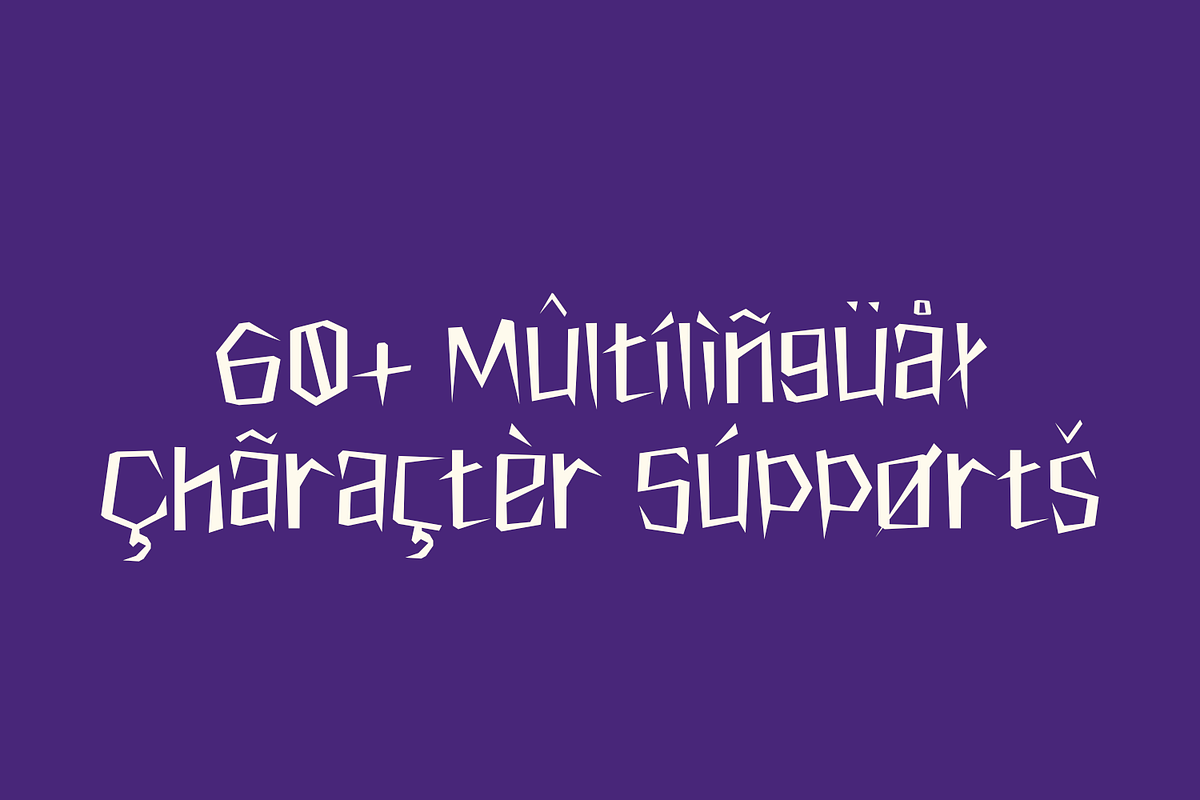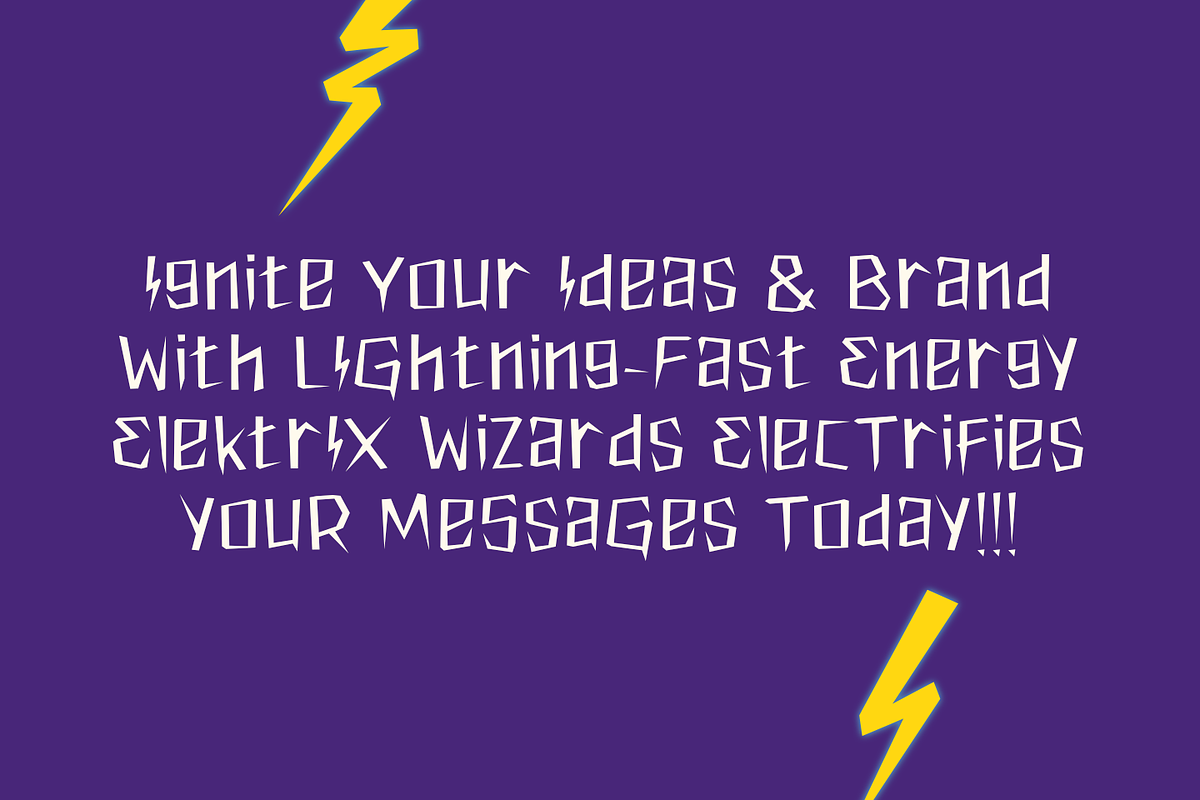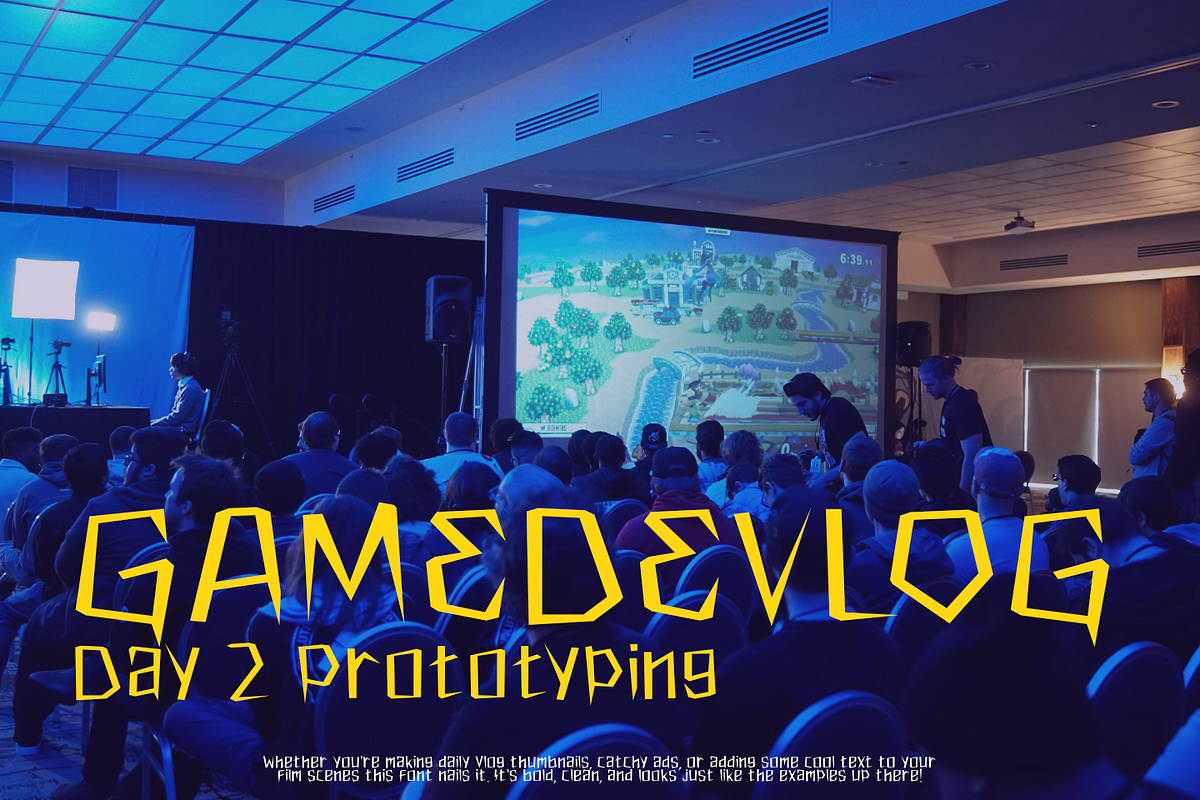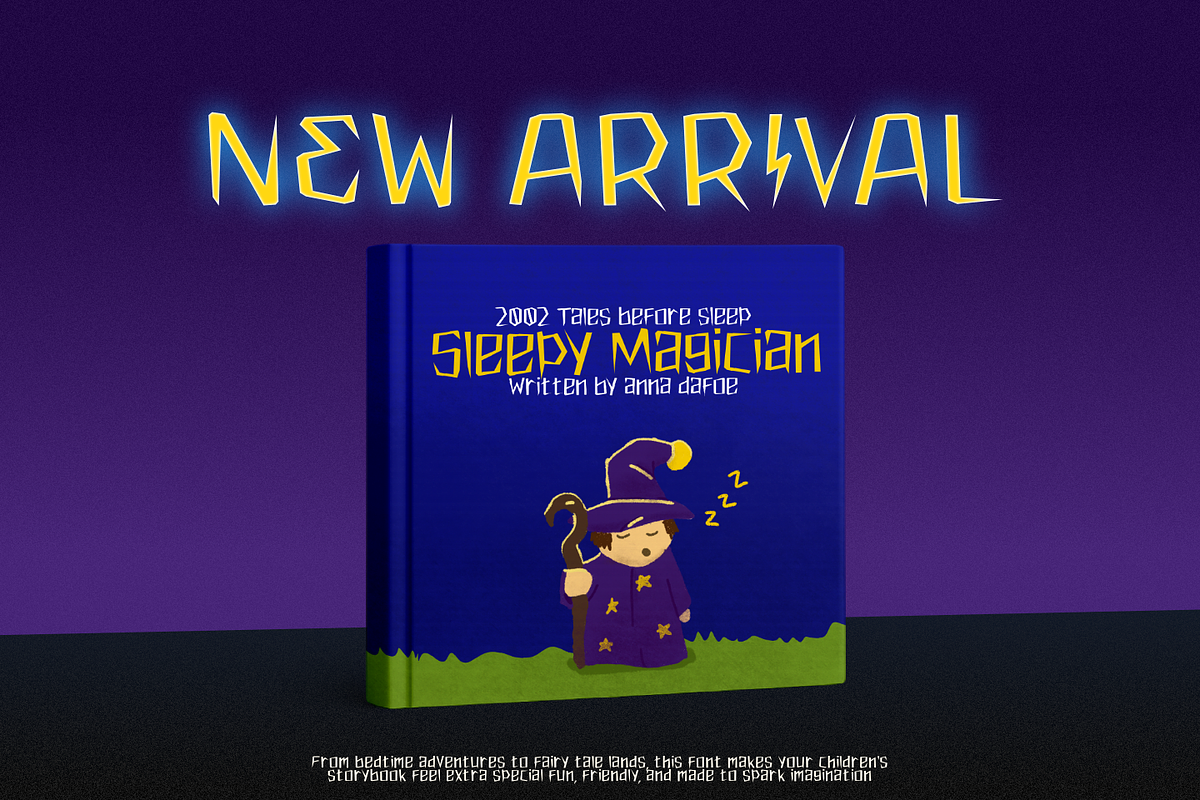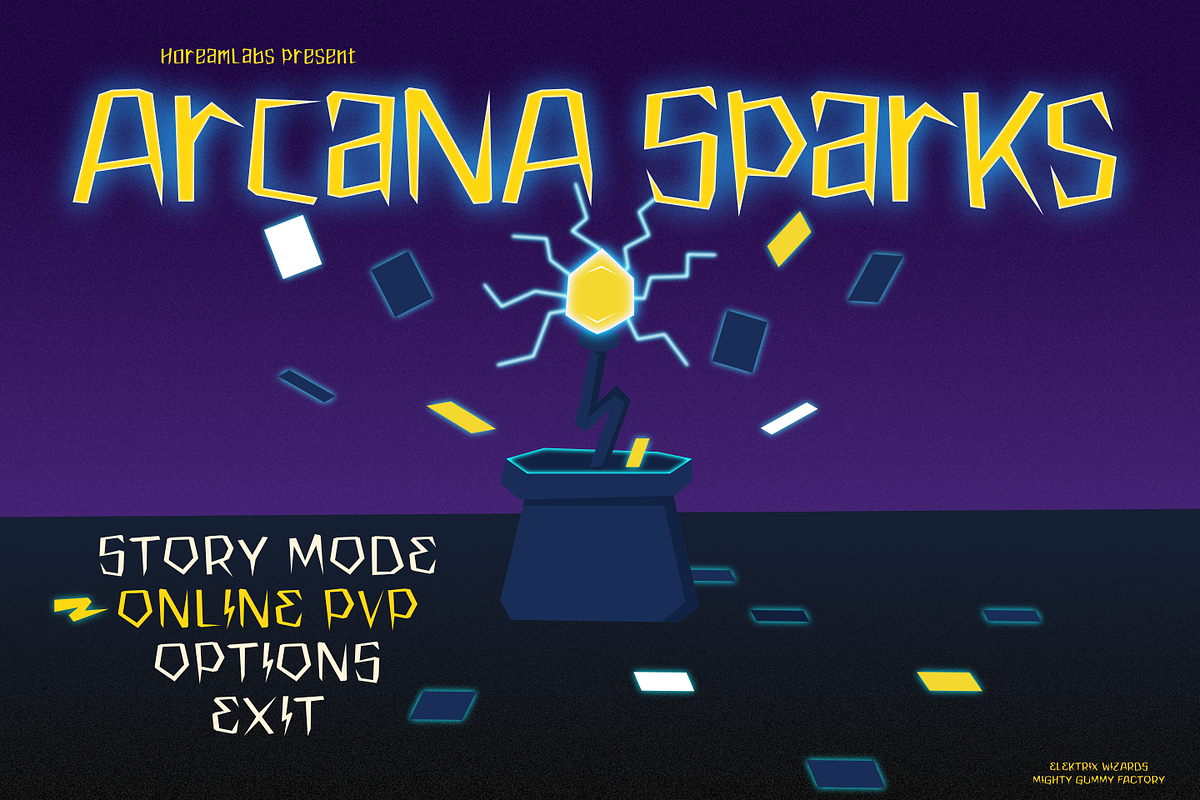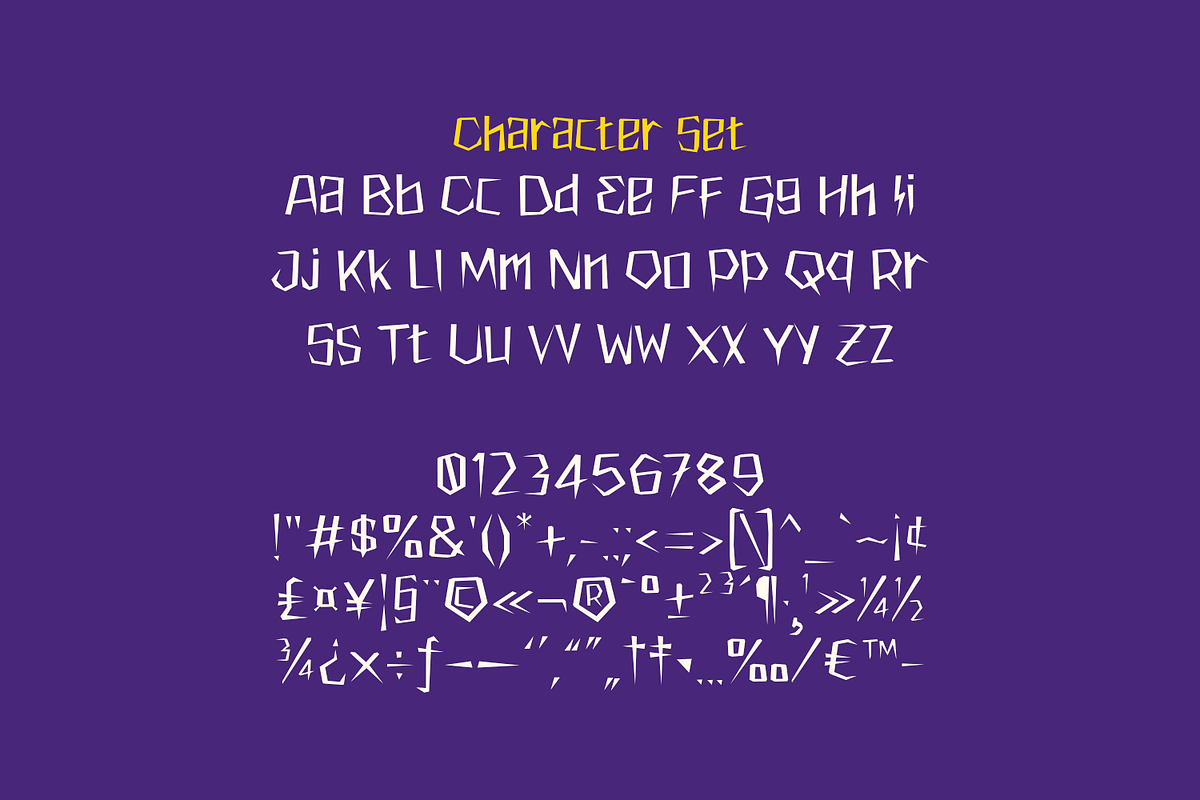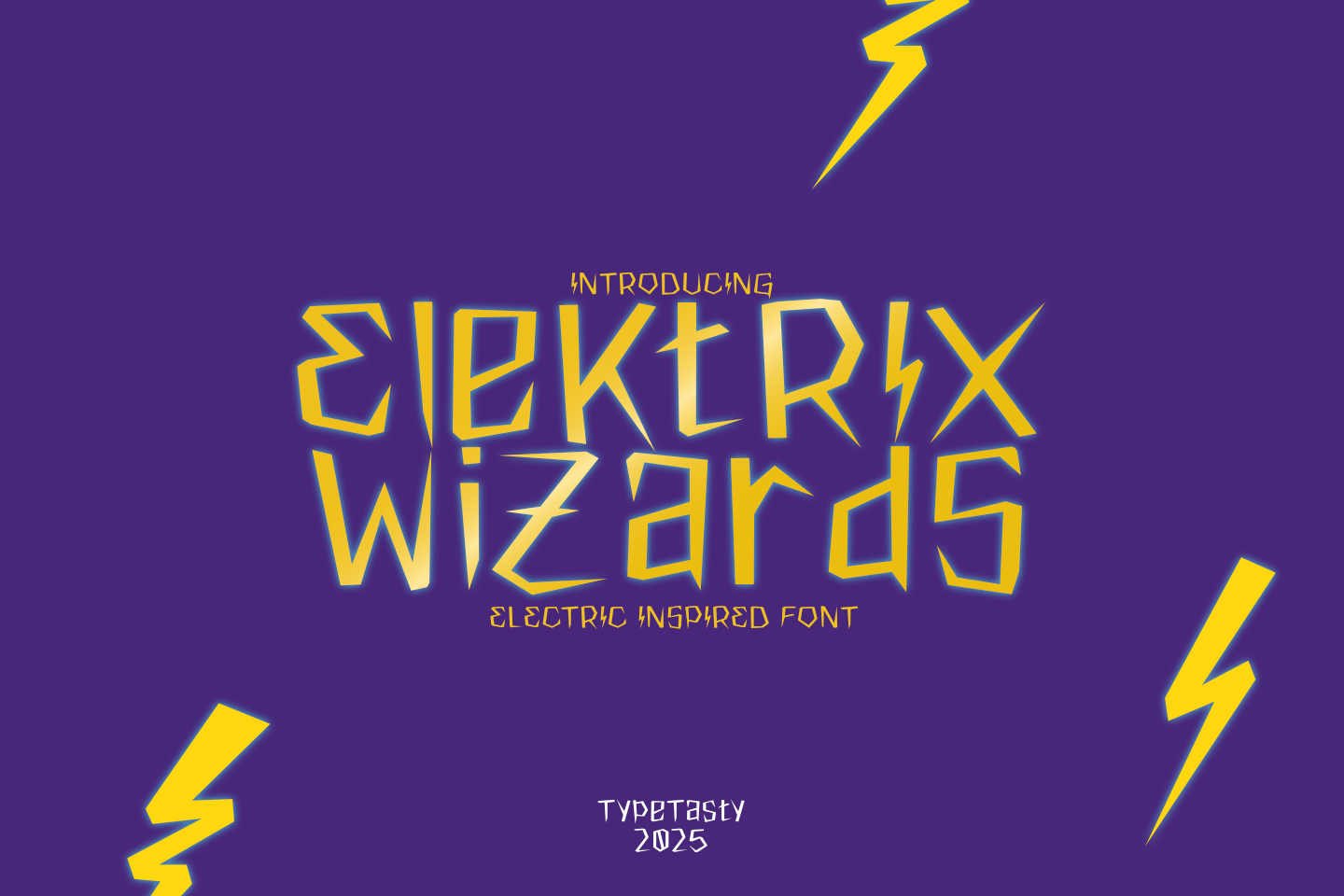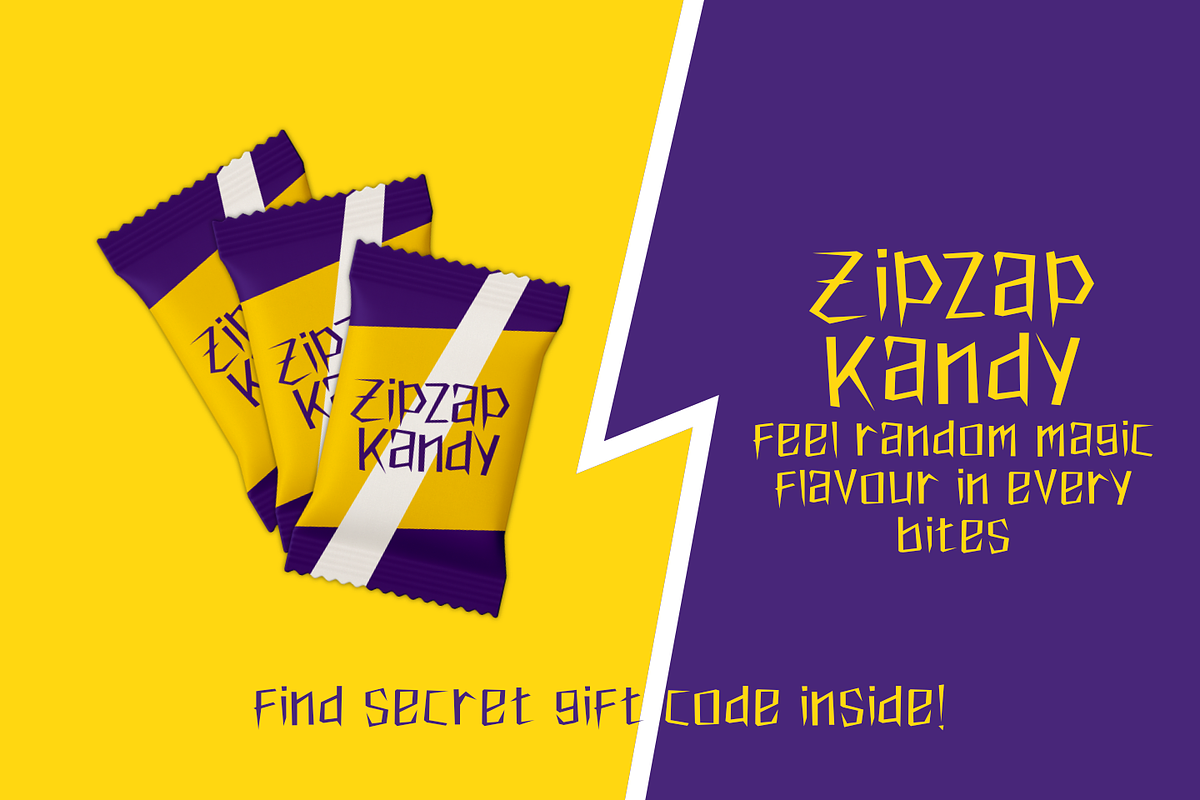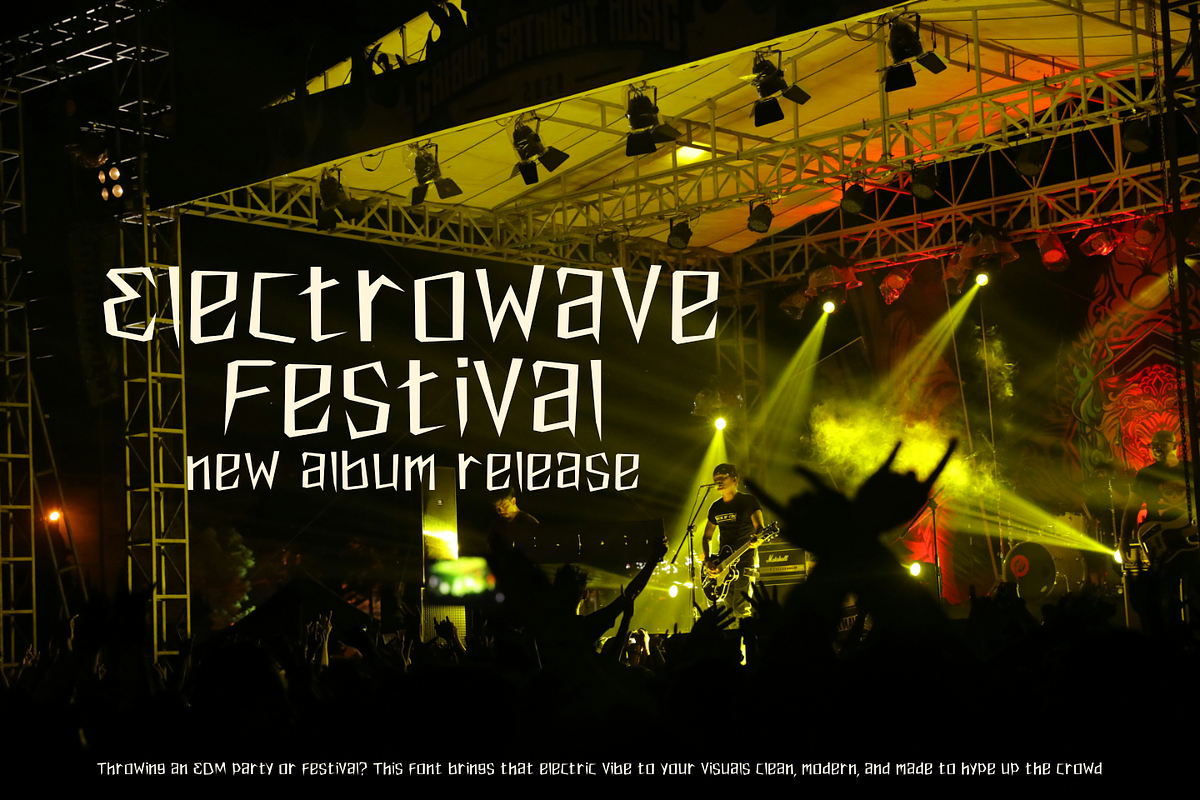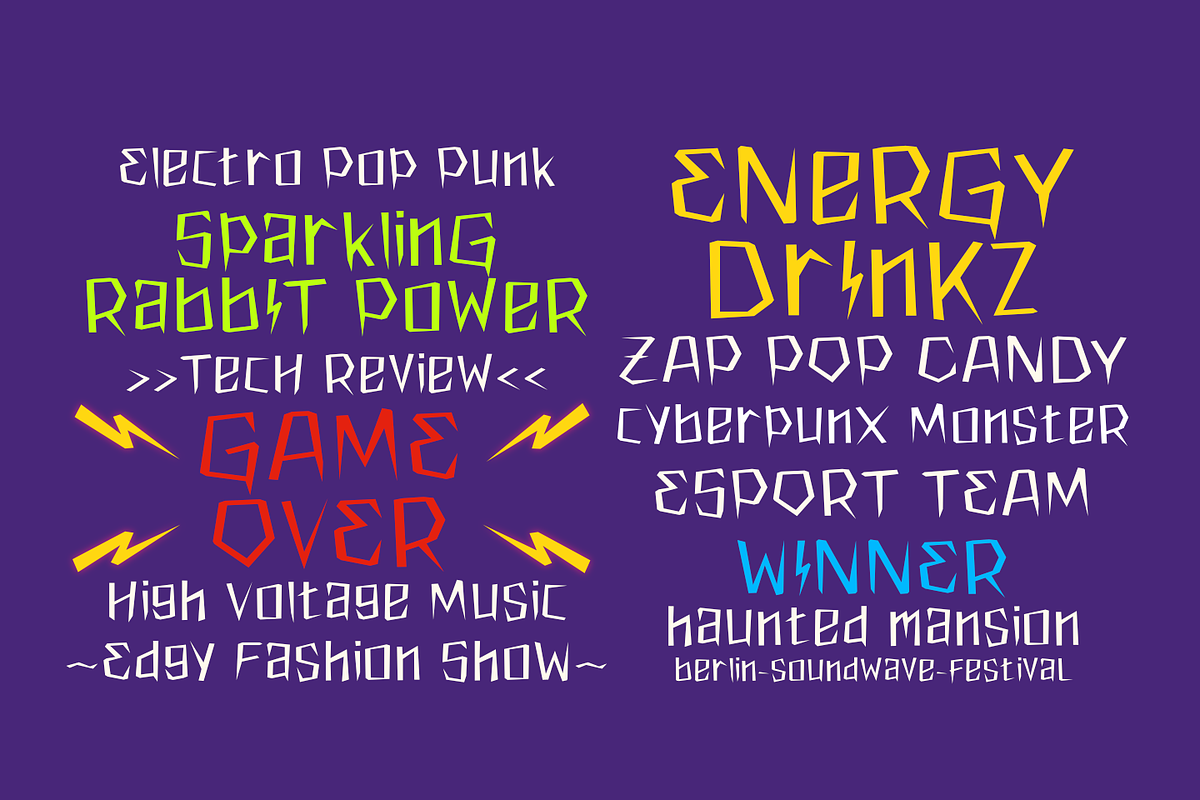
ELEKTRIX WIZARDS – Electric Font
ELEKTRIX WIZARDS is an electric-inspired display font designed for high-energy projects—from gaming to music posters, Twitch overlays, and edgy branding. Featuring bold, angular lightning-bolt letterforms, it’s perfect for e-sports logos, sci-fi art, and youth-centric designs that demand attention. If your project needs energy, voltage, and impact—this font brings the power.
⚡ Electrifying Style & Vibe ELEKTRIX WIZARDS is a dynamic and edgy display font charged with bold energy and futuristic flair. With jagged lightning bolt influences and angular strokes, this font sparks intensity and movement in every word it forms.
⚡ Ideal for Modern, Pop-Energy Markets Perfectly suited for gaming titles, e-sports branding, techno posters, energy drink packaging, cyberpunk graphics, YouTube thumbnails, and youth-targeted digital content.
⚡ Distinctive Letterforms Geometric and sharply stylized, each character appears as if it’s been cut from raw electricity. Several characters include lightning bolt-like alternates, giving your text visual impact with a chaotic spark.
⚡ Best Use Cases Use ELEKTRIX WIZARDS for:
- E-sports & gamer branding
- Music festival & rave posters
- Techno/electric music cover art
- YouTube intros and Twitch overlays
- Kids’ science or STEM content
- Energetic packaging and sticker sets
Bring the shock factor to your designs with a display font that electrifies attention. ELEKTRIX WIZARDS isn’t just a typeface it’s a visual power surge built to energize your message with bold, charged-up letterforms. Whether you’re branding an indie game or designing merch for a DJ set, this font delivers the voltage your creative vision demands.
⚡ Lightning-Bolt Lettering
Angular, high-voltage shapes inspired by electricity
Includes quirky lightning-style glyphs for “R”, “S”, and “Z”
⚡ Maximum Visibility
Perfect for large headlines and energetic titles
Commands attention in digital and print media
⚡ Creative Edge
Stands out in sci-fi, punk, and futuristic themes
Ideal for audiences aged 10–30 and design-forward brands
⚡ Easy to Use & Pair
Pairs well with clean sans-serifs for balance
Looks stunning on neon or dark backdrops